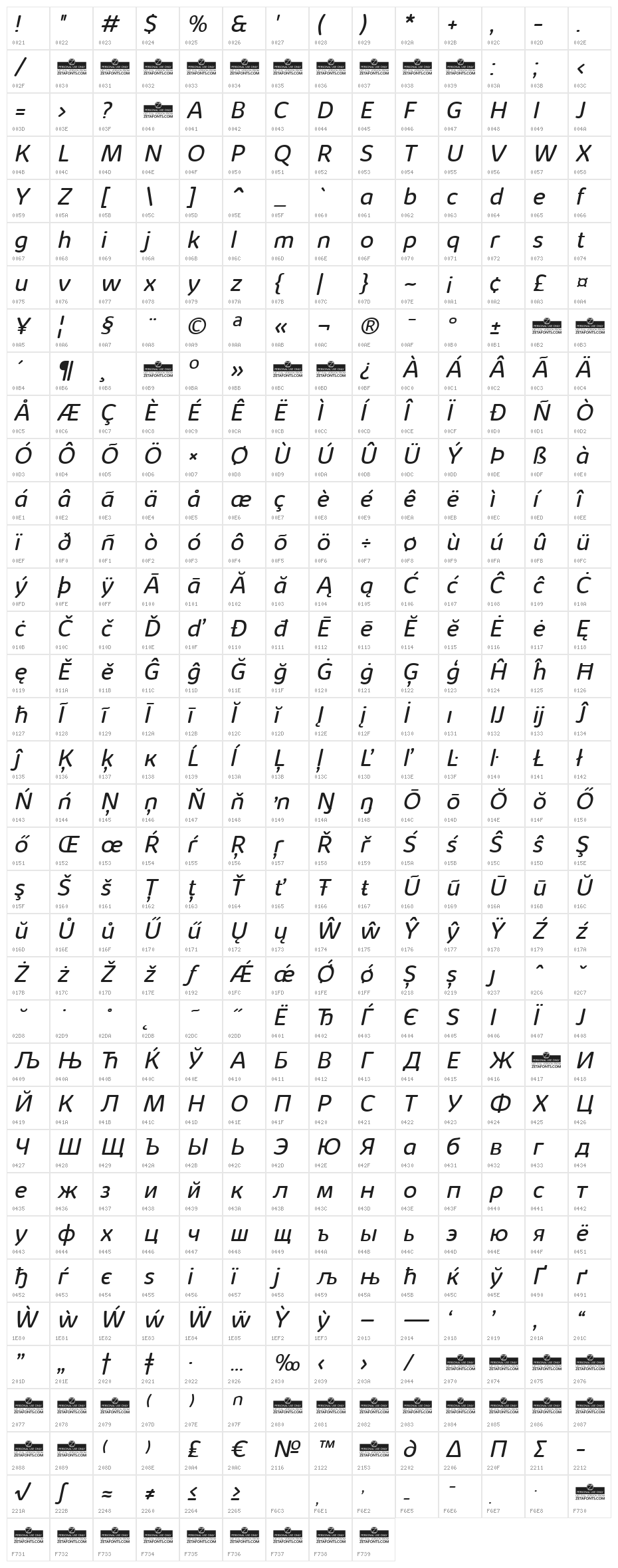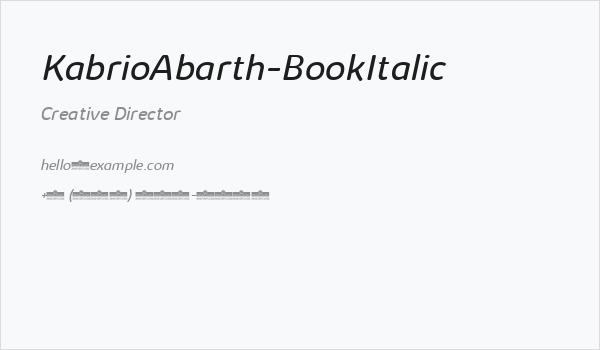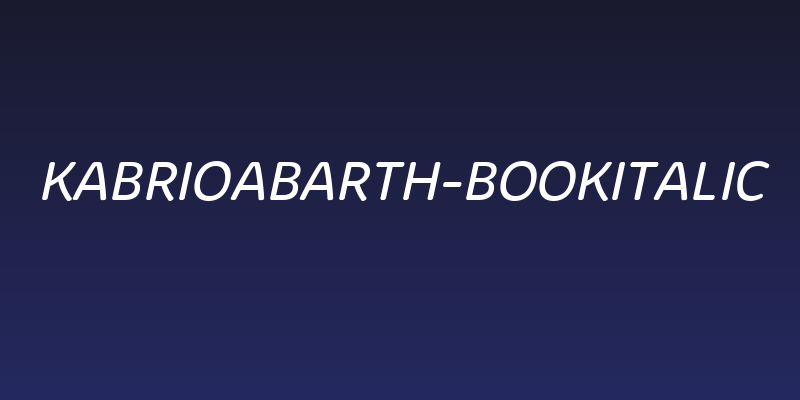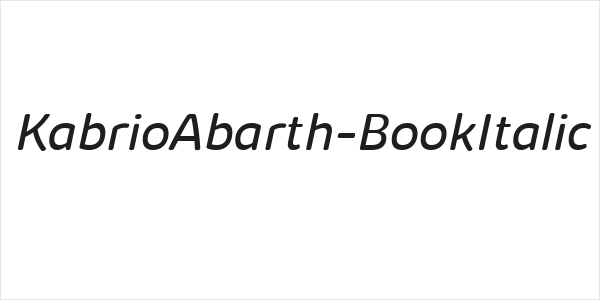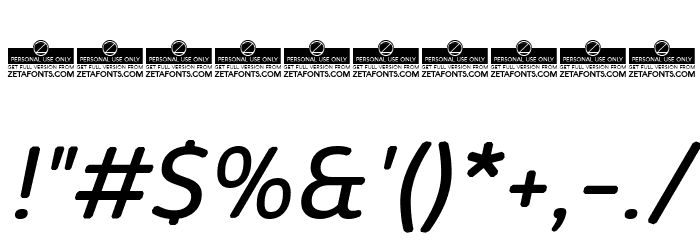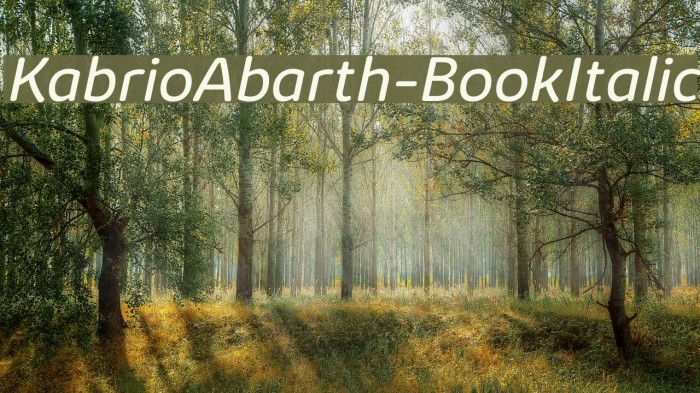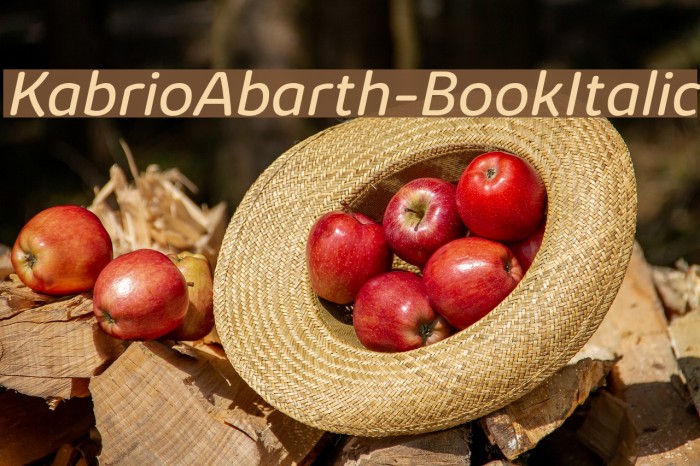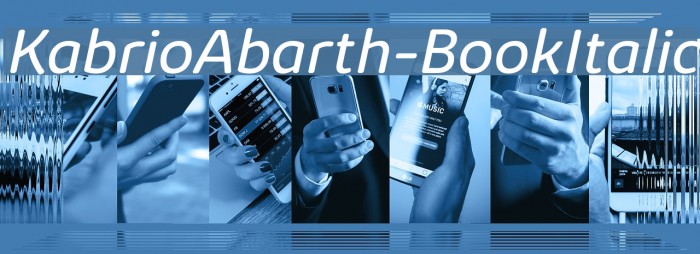
KabrioAbarth-BookItalic Font
| Caso de uso | Headlines, Body text, Logos |
| Proyectos propuestos | Ideal for branding, advertising, and editorial design projects that require a modern and elegant touch. |